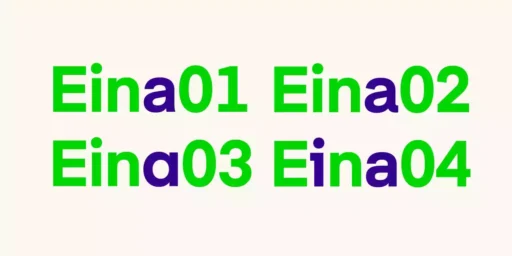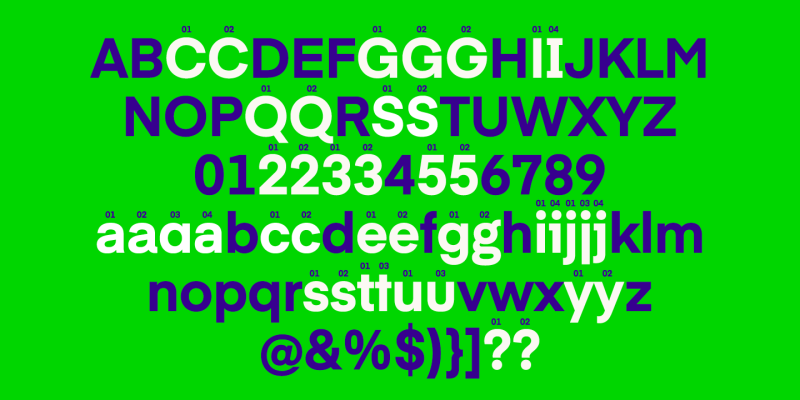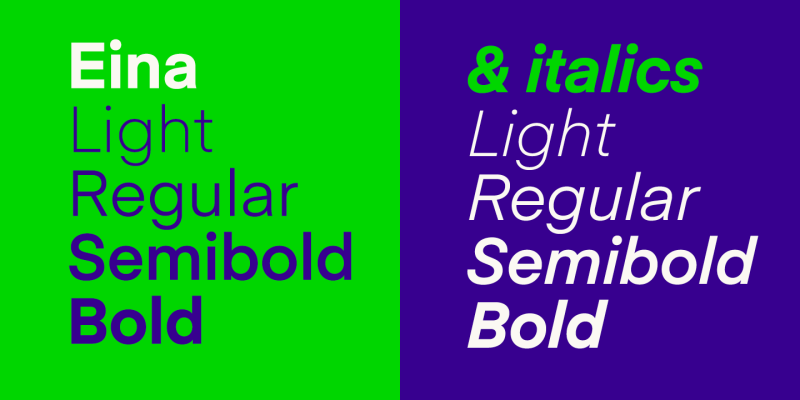
Eina Font
Eina Typeface was born to be corporate font of the prestigious design institution “EINA, University Centre of Design and Art,” it is not just a font but an educational philosophy in letterforms. Eina, beside being a typographical tool, is a medium for teaching typography itself.
The meticulous design and development journey of Eina Typeface are chronicled in the publication “Four Nuances of a Typographical Standard: A Typeface for EINA.” This detailed documentation provides an understanding of the development of Eina that reveals the effort and mastery put into it.
Eina Typeface stands as a testament to versatility and adaptability, boasting 32 original styles organized into four distinct categories: rational, humanist, geometeric and industrial. Each category has four weights together with their relative italics, thus giving designers the complete set for creativity. Be it logic and order, humanist warmth, geometric precision, industrial efficiency—the typeface offers any solution you need.
Eina Typeface showcases its capabilities as a multi-functional typographic solution in all fields of design. Eina’s varied styles and weights make this font suitable for branding and corporate identity projects as well as editorial design, web interfaces, advertising, signage, educational materials, and event branding. With its straight lines and justified proportions, it is perfect for all type of environments whether printed or digital, while its rooted in an educational typeface gives it more depth and credibility. Eina Typeface proves as an appropriate typographic solution for designers who desire a modern but practical solution while guiding navigation in public spaces or improving the readability of instructional content.
To sum up, Eina Typeface is a perfect marriage of education and design, which embodies the rules of typography while inviting to creative experiments. Being complete in style variety, thorough in documentation, and pro positive in purchase terms, this is an essential resource both for designers and educators, in this way enriching typography with a solid depth and flexibility.
Eina Font is a Sans Serif Fonts font that brings a professional and versatile look to your projects. Eina Typeface was born to be corporate font of the prestigious design institution “EINA, University Centre of Design and Art,” it is not just a font but an educational philosophy in letterforms.